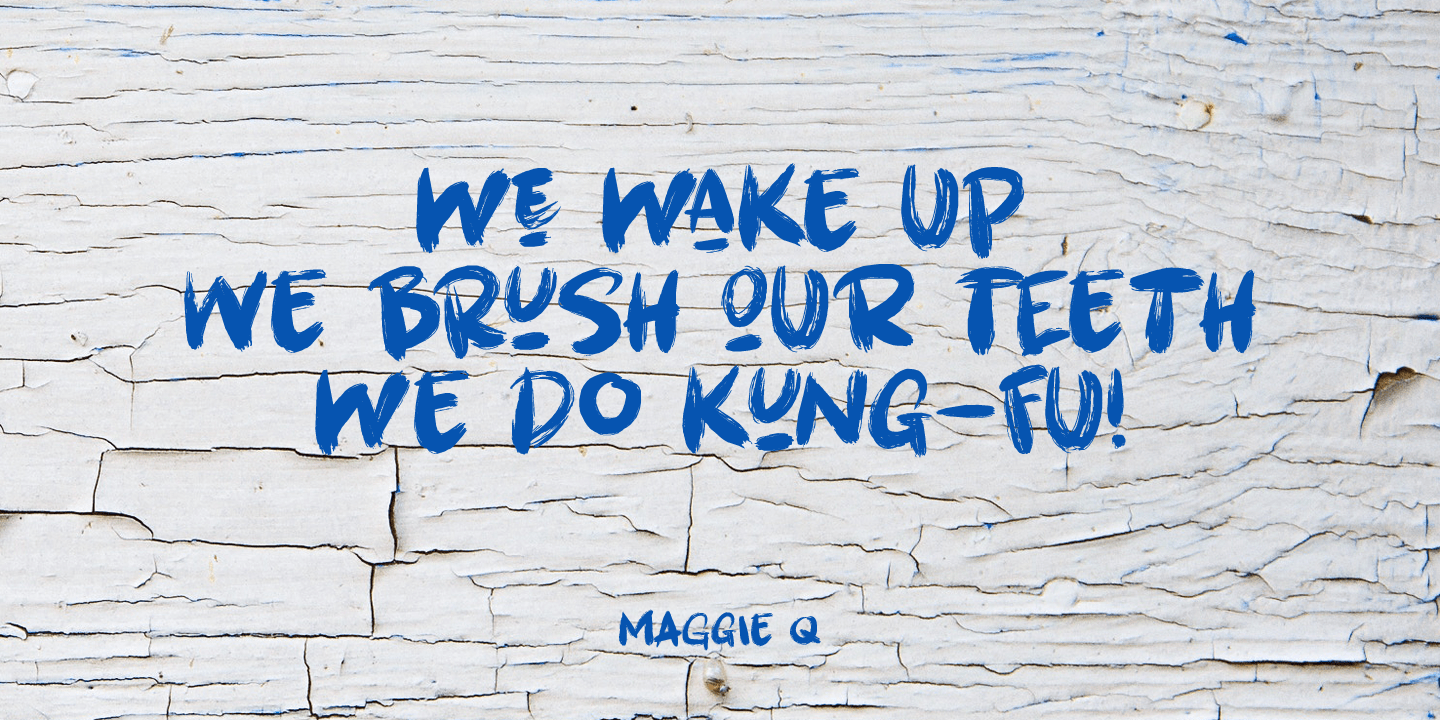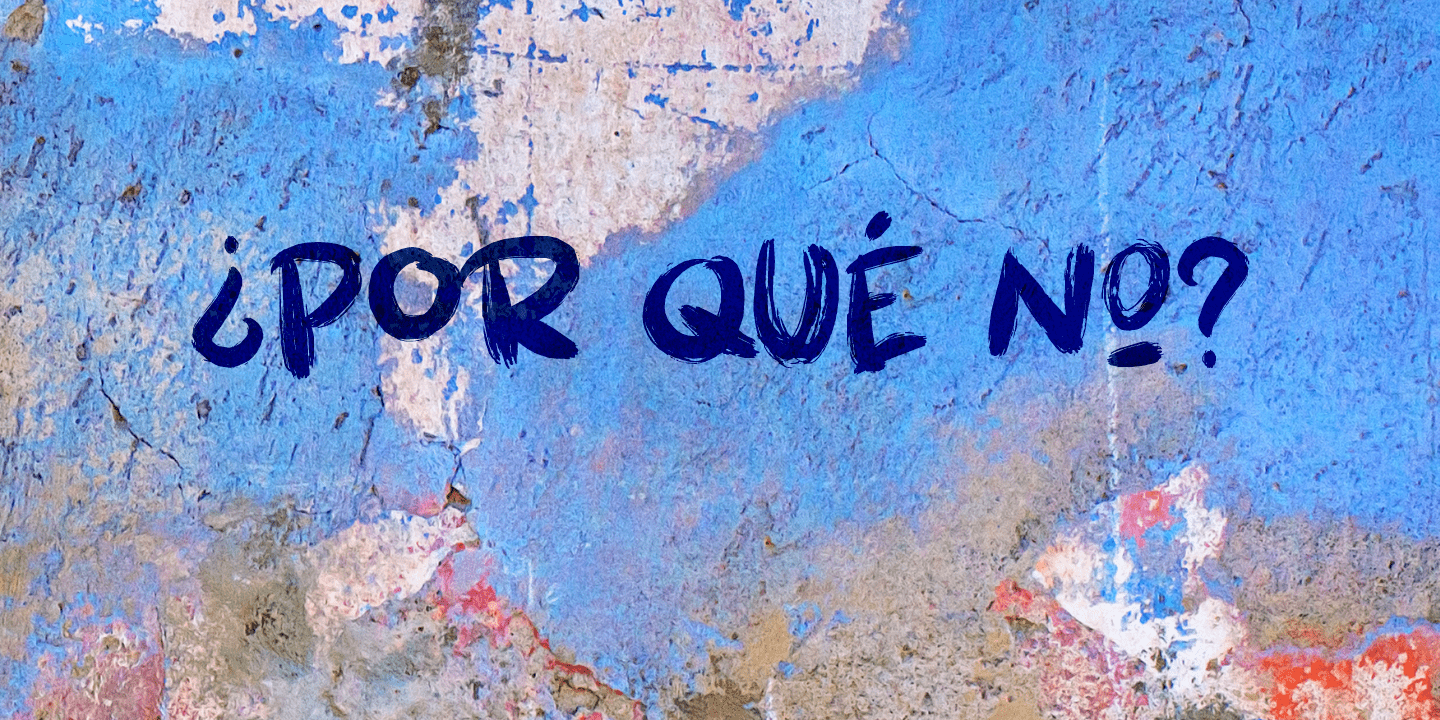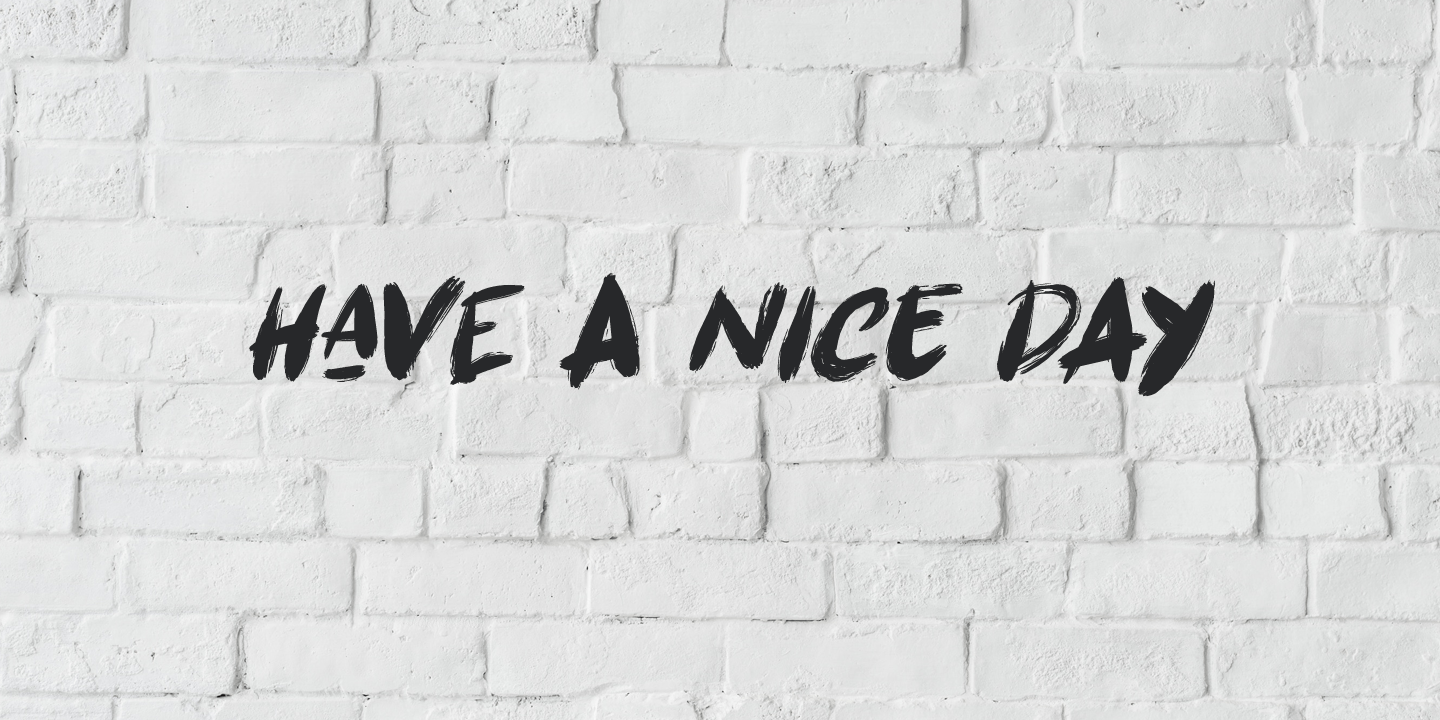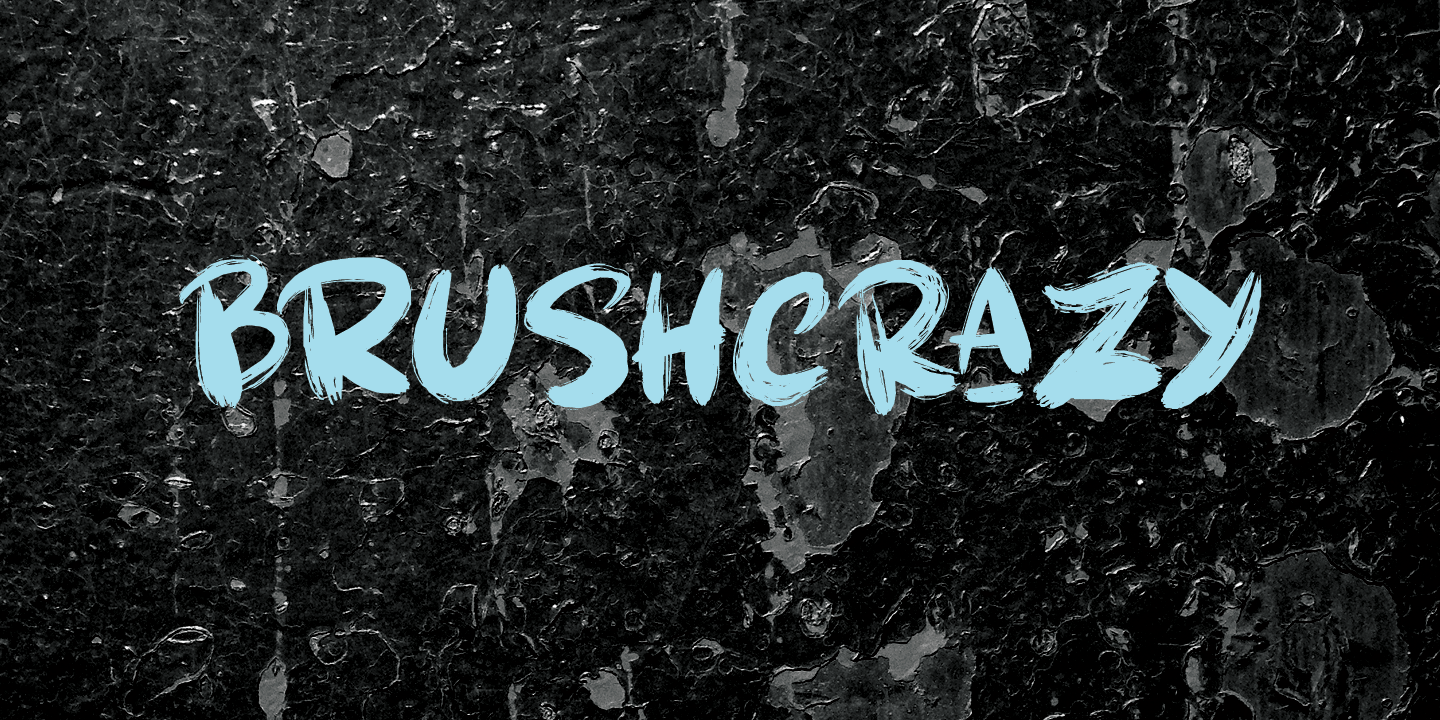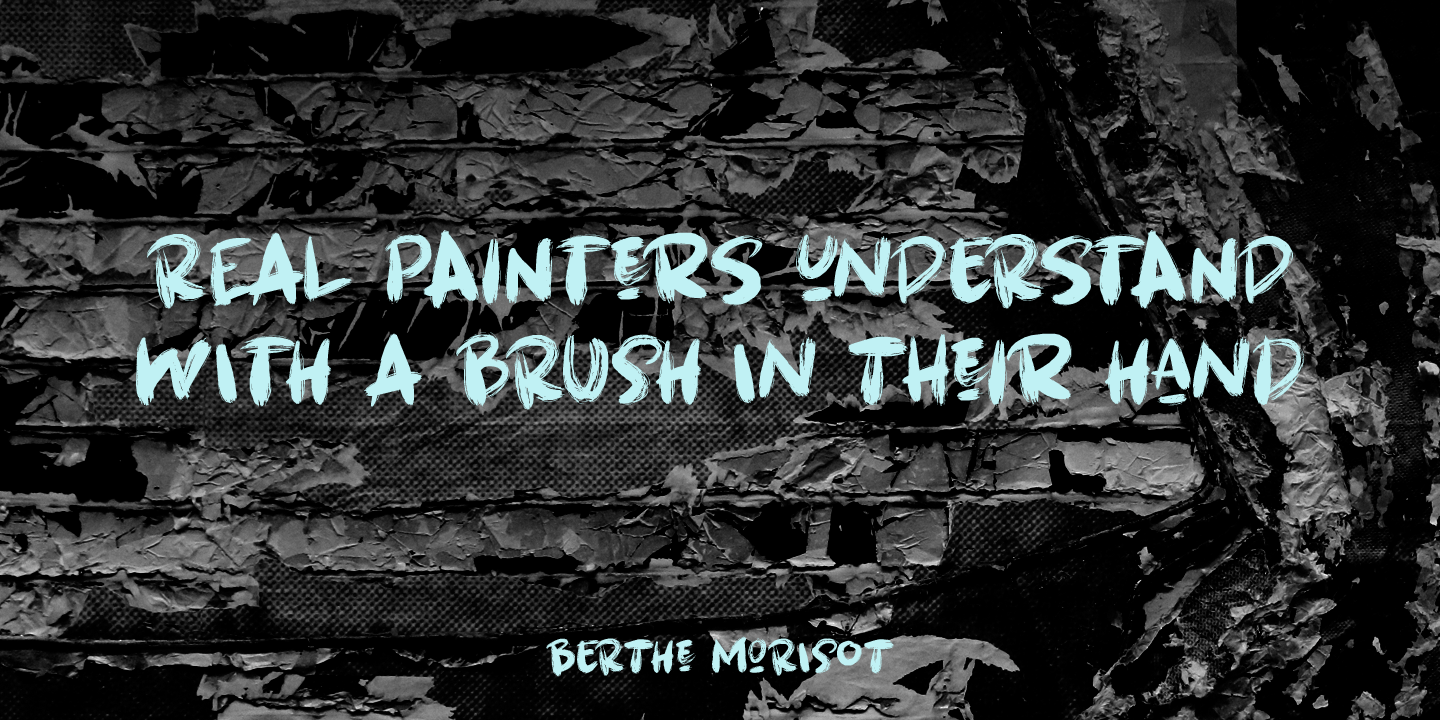
HomeFont BrosBrushcrazy Font Bros Brushcrazy FacebookXPinterestWhatsApp 1 of 5 About Brushcrazy is a crazy brush font. Yes, you read that right! It comes with a lot of attitude, serious brush strokes, nice detail and a handful of alternate glyphs and ligatures as well!  DOWNLOAD NOW People also explored Quick Font Ving Smith Font Fast Rush Font Christmas Sweater Font Kitti Script Font Valentine Special Font Rustic Farmer Font Skincare Font Cutie Font 213 0 TagsBrushcrazy Font Previous articleMon VoirNext articleParalucent Stencil LEAVE A REPLY Cancel reply Comment: Please enter your comment! Name:* Please enter your name here Email:* You have entered an incorrect email address! Please enter your email address here Website: Save my name, email, and website in this browser for the next time I comment. Personal Use Free Cosmos Personal Use Free Read more about this font Befindisa Personal Use Free Read more about this font Anti Personal Use Free Read more about this font Denisha Personal Use Free Read more about this font BLOG 5 Fonts That Will Dominate Design Trends in 2026 5 Fonts for 2026 That Will Dominate Design Trends Typography plays a critical role in visual communication, and as we look ahead to 2026, it’s... How to Cut Any Font on Cricut: Convert a Font to SVG (Free) Fonts That Capture the Spirit of New York City Best Fonts for T-Shirt Design – Top 2025 Picks